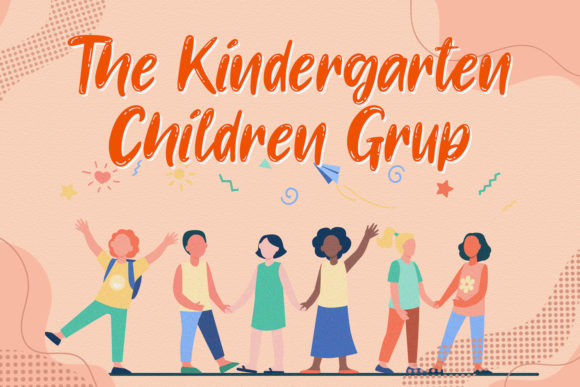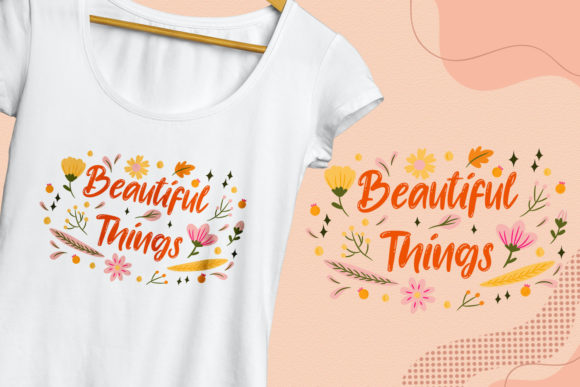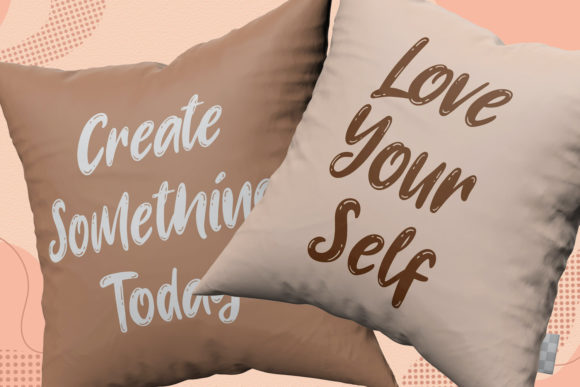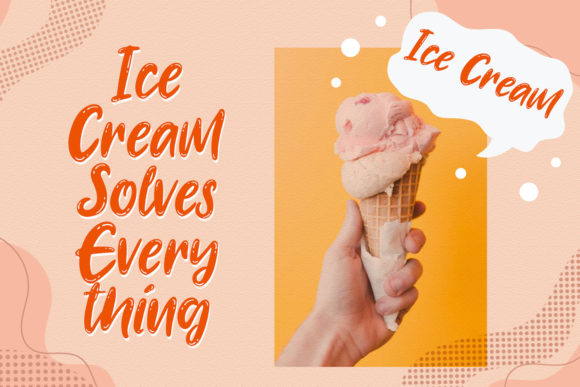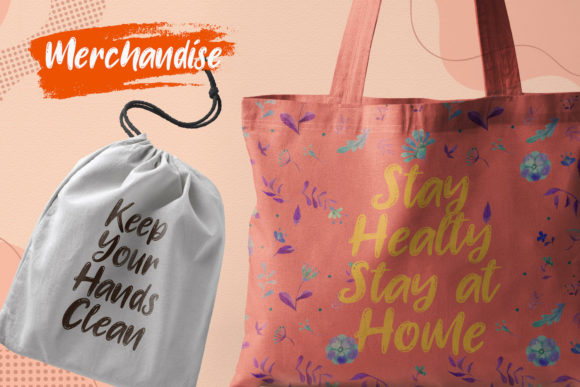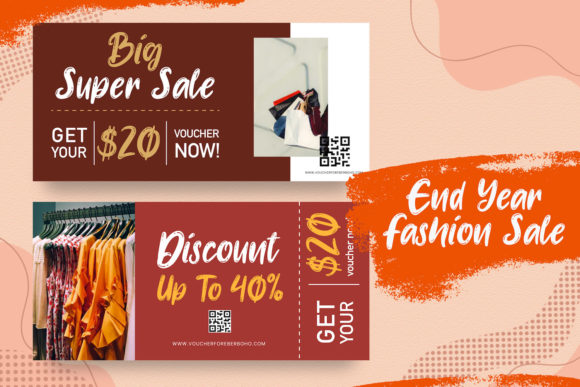
The Perfect Font for Unconventional Creativity
Have you ever been brainstorming ideas for a project, and suddenly, something magical happens? A spark of inspiration strikes, and you know exactly how to bring your concept to life. That’s exactly what happened to designers who discovered the Banyu Langits Font.
This adorable display font is more than just a pretty face – it’s a versatile tool that can elevate your creative ideas to new heights. Banyu Langits Font is designed to add a touch of friendliness and whimsy to your designs, making it perfect for a wide range of projects, from children’s books to social media graphics.
As a valuable addition to any designer’s toolkit, the Banyu Langits Font offers endless possibilities for creative expression. Whether you’re a seasoned pro or just starting out, this font is sure to bring a smile to your face and inspire your next big project.
Banyu Langits Font Key Features
- Font Family: Banyu Langits is a unique, modern script font designed to evoke the feeling of flowing water. It’s perfect for creative and artistic projects.
- Unique Characteristics: The font features a flowing, cursive design with a unique blend of traditional and modern elements. It includes a wide range of ligatures and swashes, making it perfect for creating beautiful, handwritten-style text.
Banyu Langits Font Review
Overall, I’d say the Banyu Langits font is an interesting addition to any designer’s toolkit. Let’s dive into the details.
- Unique aesthetic: Banyu Langits has a distinct look that sets it apart from more common fonts. Its stylized curves and geometric elements make it perfect for creative projects that need a touch of whimsy.
- Legibility: Despite its ornate design, the font is surprisingly easy to read, even at smaller font sizes.
- Flexibility: Banyu Langits works well in a variety of contexts, from body text to headings and titles.
- Limited font weight options: While Banyu Langits comes in a few different weights, the options are somewhat limited compared to other fonts.
- Not ideal for large blocks of text: The font’s unique design can make it difficult to read large amounts of text at once.
Overall, I’d say Banyu Langits is a solid choice for designers looking to add some personality to their work. While it has its limitations, the font’s unique aesthetic and flexibility make it a valuable addition to any toolkit.
Banyu Langits Font Practical Application Guide
Tips for Getting the Most Out of Banyu Langits Font
Use the Banyu Langits font in combination with other design elements to create a unique and eye-catching visual effect. Experiment with different font sizes, colors, and styles to find the perfect balance for your design project. Use the font to create beautiful titles, headings, and paragraphs that grab the attention of your audience.
Common Use Cases for Banyu Langits Font
The Banyu Langits font is perfect for creating beautiful titles, headings, and paragraphs for wedding invitations, event programs, and other formal documents. It’s also great for creating custom logos, branding materials, and marketing materials.